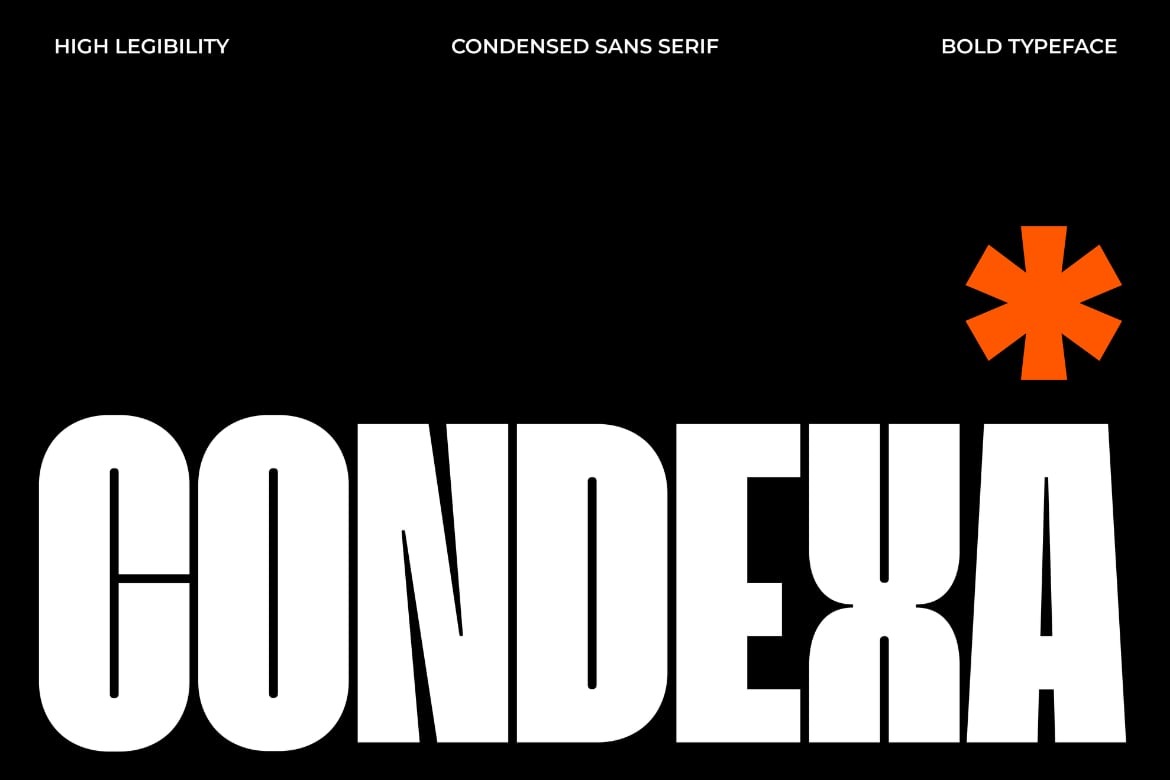
Condexa – Condensed Sans Serif Font
Condexa – Condensed Sans Serif Font is a distinctive and expressive font crafted to bring personality, structure, and creative energy into your projects. Condexa is a clean, modern condensed display sans serif font built for designers who need maximum impact in minimum space. Its tall, narrow letterforms strike the perfect balance between elegance and strength — making it a versatile choice for a wide range of professional design projects.
From editorial layouts and corporate branding to posters and advertising — Condexa brings a sharp, contemporary presence to every headline it sets.